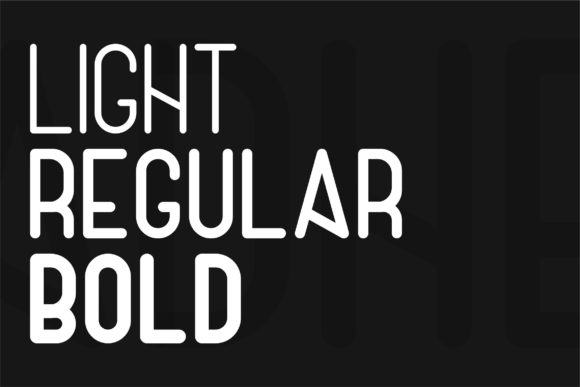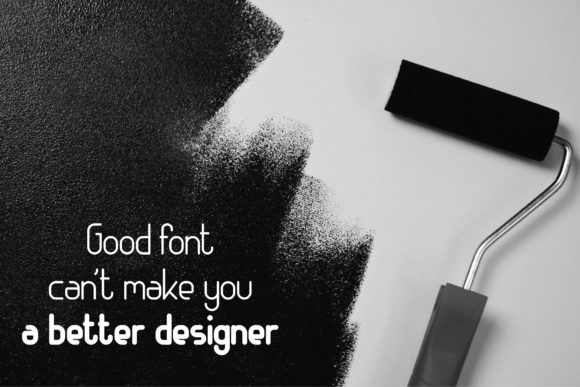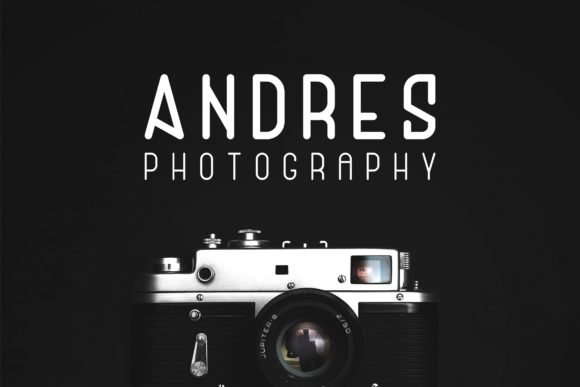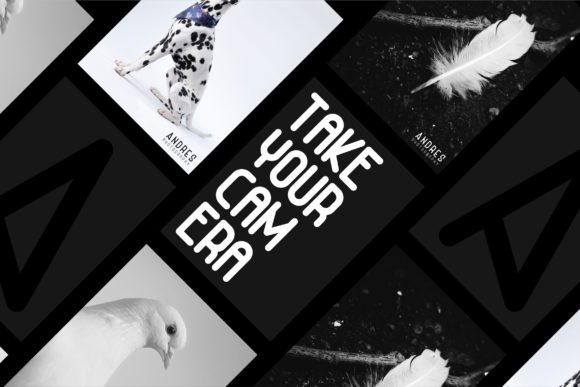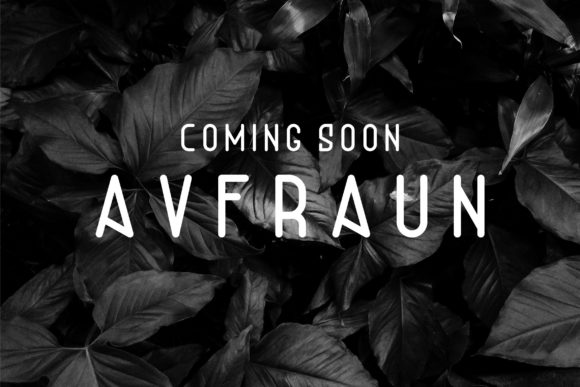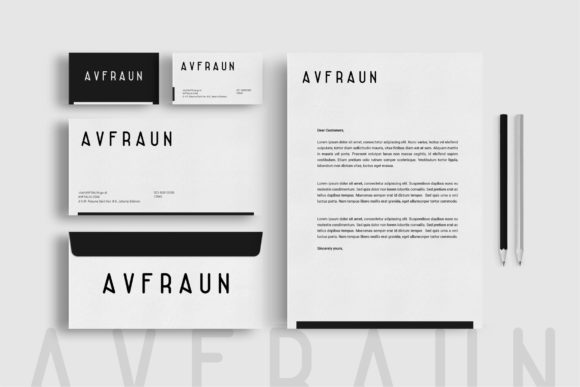
The Perfect Blend of Classic Elegance and Modern Design
Have you ever been rummaging through an old antique shop, surrounded by vintage posters and dusty prints, and suddenly felt a spark of inspiration? That’s exactly what happened to the creators of the Adhe Family Font. They were captivated by the classic posters of the past and set out to bring that same timeless charm to the digital world.
The result is a stunning handmade sans font that’s perfect for logos, letterheads, posters, apparel designs, labels, and much more. The Adhe Family Font is a treasure trove of creative possibilities, offering designers a unique opportunity to add a touch of classic elegance to their work. Whether you’re working on a branding project or a graphic design piece, this font is sure to elevate your designs and leave a lasting impression.
Adhe Family Font Key Features
- Font Family: Adhe Family Font is a sans-serif font family that includes multiple weights and styles.
- Unique Characteristics: Adhe Family Font features a clean, modern design with a subtle rounded edge, making it perfect for corporate branding and digital interfaces.
Adhe Family Font Review
Overall, I found the Adhe Family Font to be a unique and intriguing addition to any design project. ✨ One of the standout features is its versatility – it can be used for both modern and traditional designs, making it a great choice for a wide range of applications. The font’s elegant lines and refined details also lend themselves well to luxury or high-end branding.
- ✨ Unique and elegant design that sets it apart from more generic fonts
- ✨ Highly versatile, suitable for a wide range of design applications
- ✨ Elegant lines and refined details make it ideal for luxury or high-end branding
However, there are a few limitations to consider. ⚠️ The font’s unique design can also make it difficult to read at smaller font sizes, particularly for those with vision impairments. Additionally, the font’s intricacies may not be suitable for use in situations where a more straightforward or simple font is required.
Overall, I would recommend the Adhe Family Font for designers looking to add a touch of elegance and sophistication to their projects. While it may not be the best choice for every situation, its unique design and versatility make it a valuable addition to any designer’s toolkit.
For the best results, use Adhe Family Font in bold or italic styles to add emphasis to your text.
Combine Adhe Family Font with other fonts to create a visually appealing contrast.
Adhe Family Font is ideal for:
- Designing modern and minimalist branding materials.
- Creating elegant and sophisticated typography for print or digital media.
- Adding a touch of sophistication to wedding invitations or event materials.